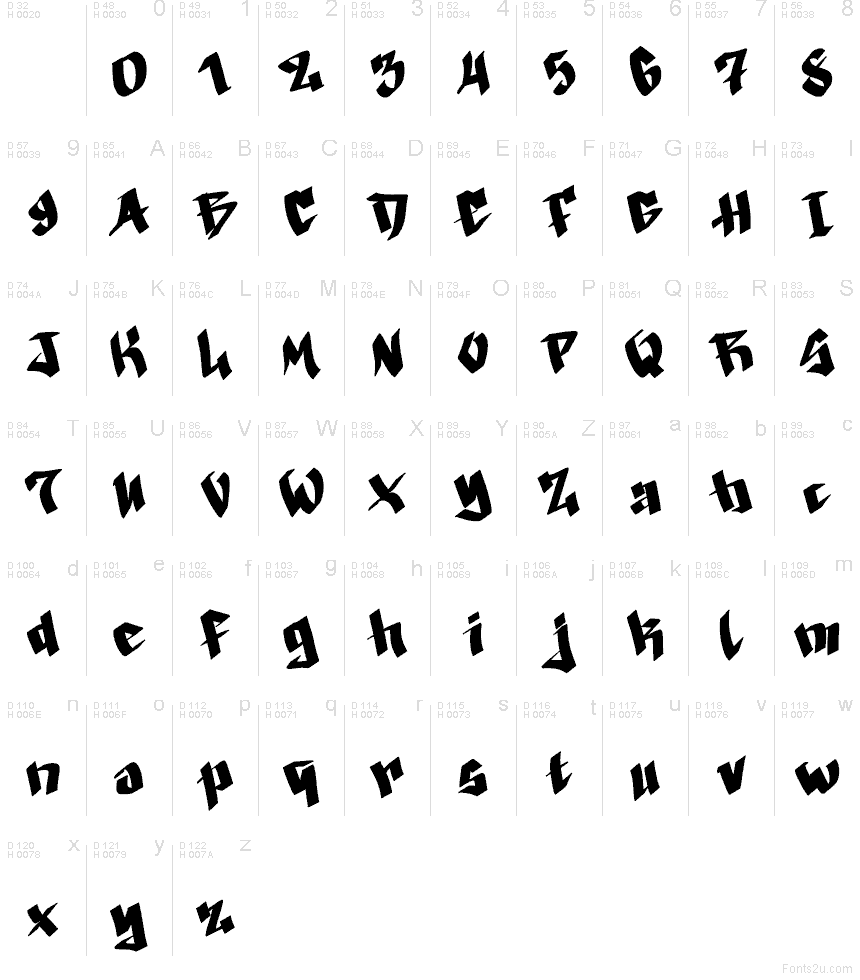
Street Legends Demo
Street Legends is a free graffiti script with jagged, marker-like strokes, sharp cut ends, and irregular letter shapes that recall quickly painted street tags. Its tight forms push forward with a tense, angular rhythm.
Skate labels and independent clothing brands can use its raw lettering for logos and T-shirt graphics. It also fits hip-hop event posters and game splash screens, where the pointed silhouettes reinforce an urban, confrontational atmosphere. Across those uses, the shared link is a taste for lettering that feels improvised, rebellious, and tied to street culture.